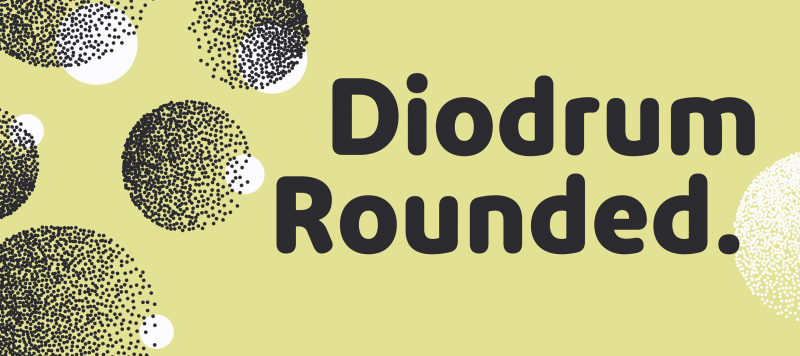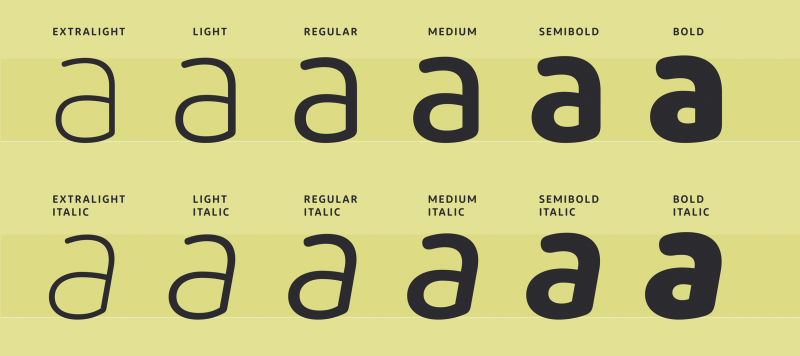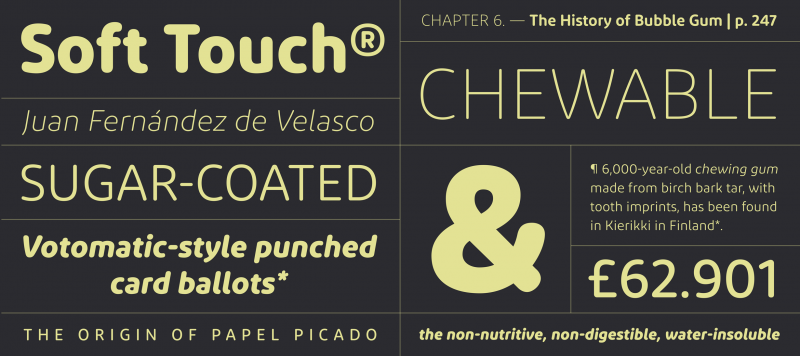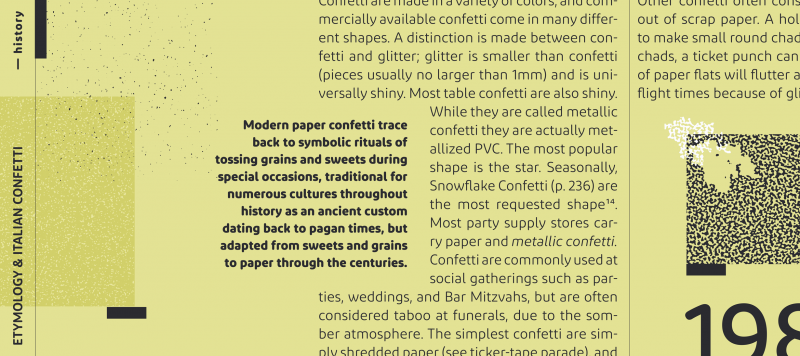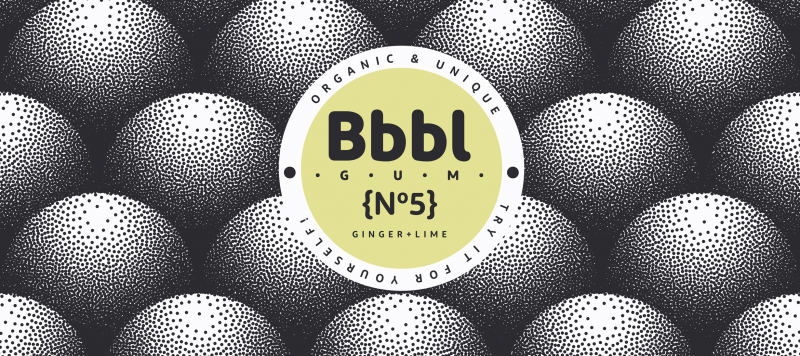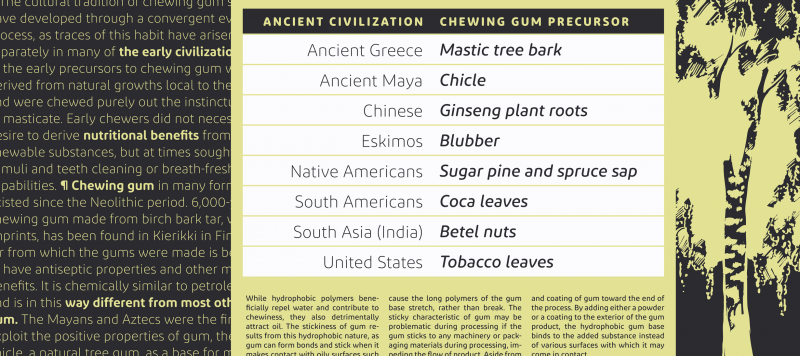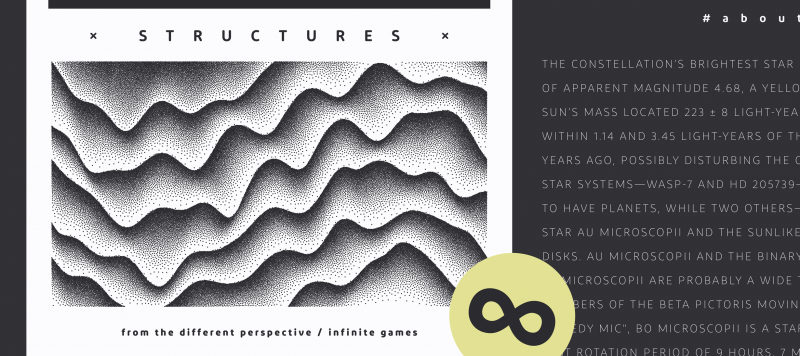
Diodrum Rounded is a spurless sans family for the Latin script. ‘Spurless’ typefaces feature smooth transitions from letters’ stems into their curved strokes. The design is generally monolinear. Diodrum Rounded’s x-height is tall, and counterforms are large and open. Instead of being drawn with straight lines, Diodrum Rounded’s diagonals swell outward. This gives letters with prominent diagonals an increased dynamism. The Diodrum Rounded typeface appears friendly & legible and is available in six weights; the lightest of which is an ExtraLight font – a unique addition to our library. Due to its multiple weights, versatile range, and formal style, Diodrum is an excellent choice for usage in Corporate Design and UI/UX Design applications.
Family Name | Diodrum Rounded |
Designer(s) | Alisa Nowak, Clara Jullien, Jérémie Hornus, Manushi Parikh |
Classification | Sans |